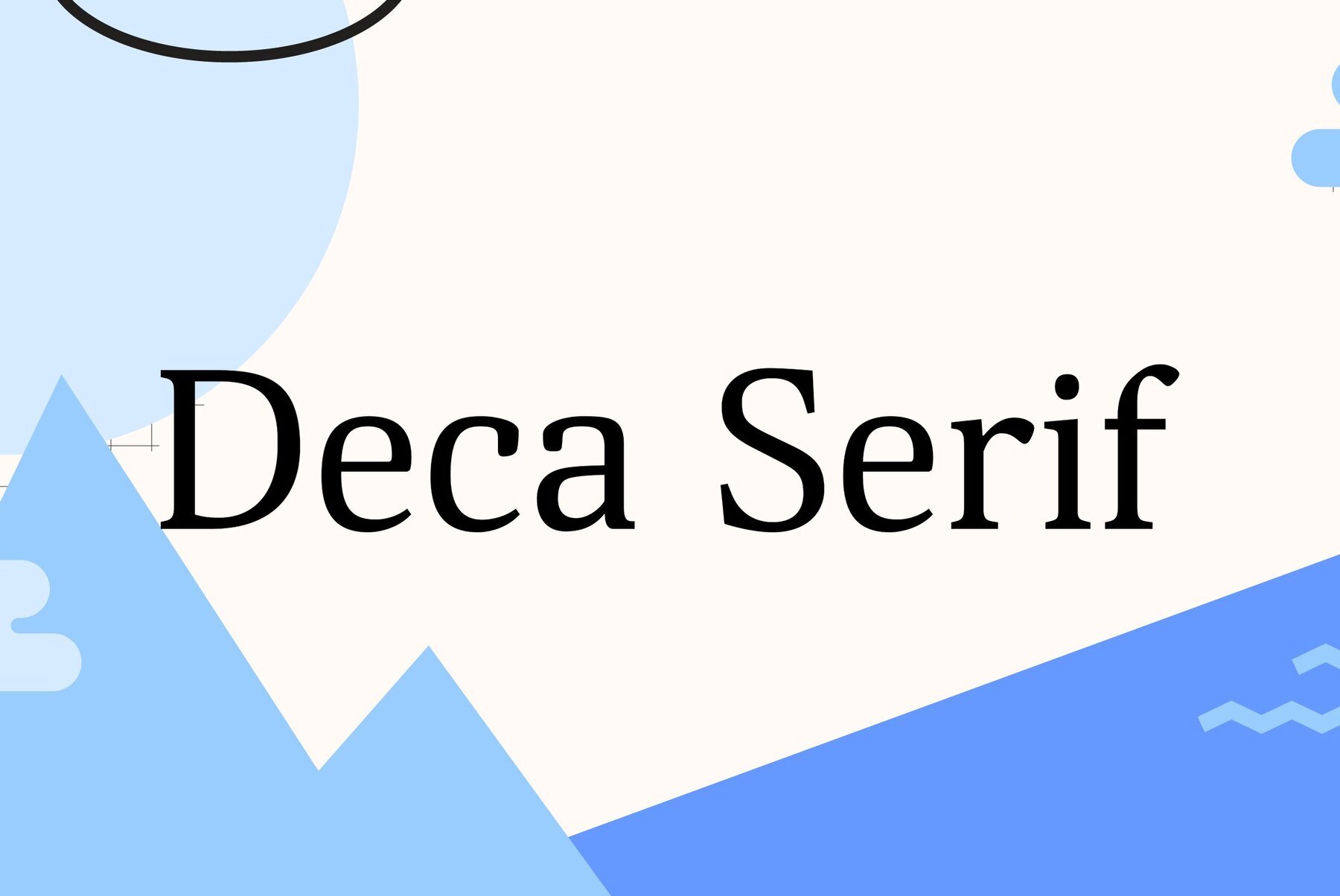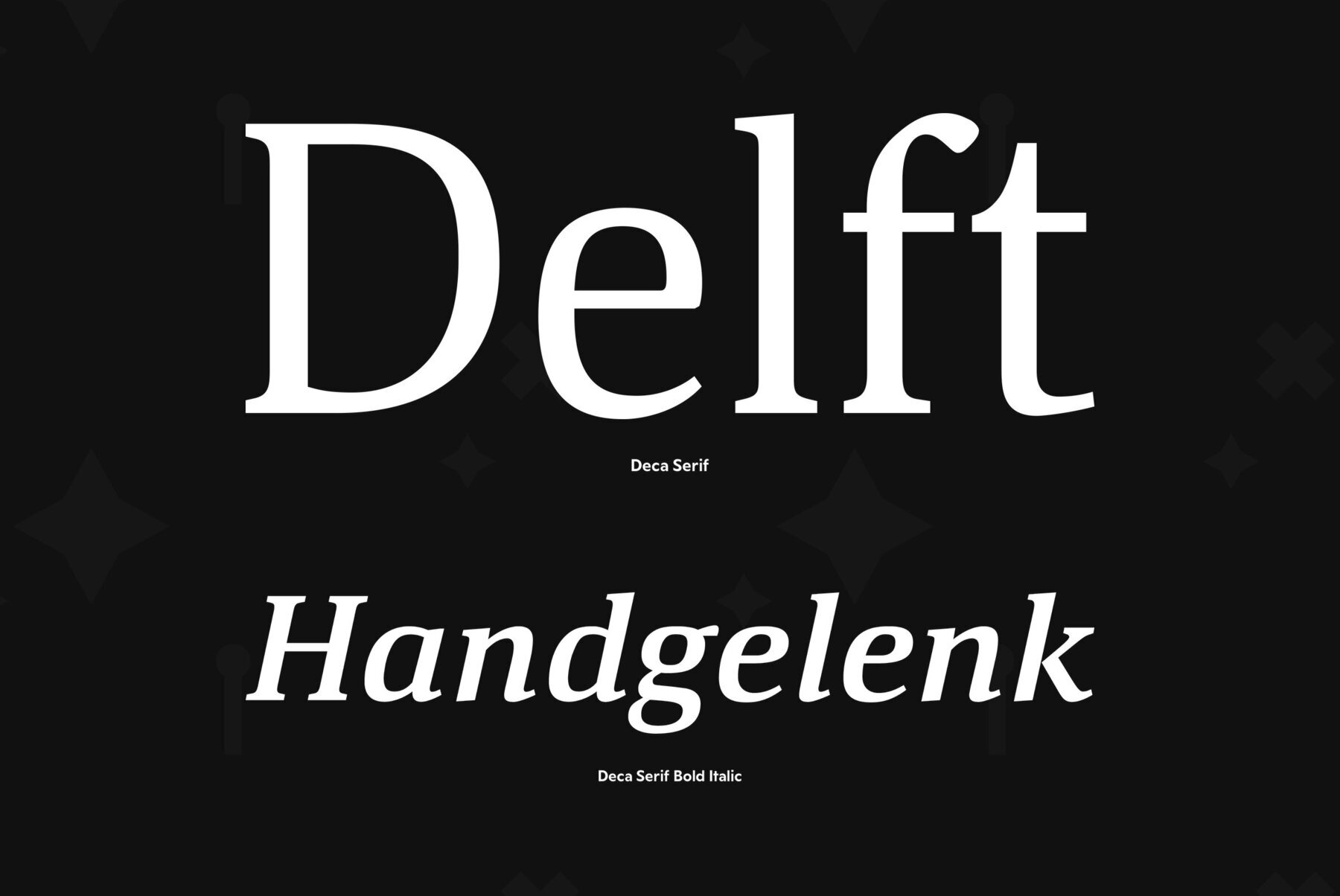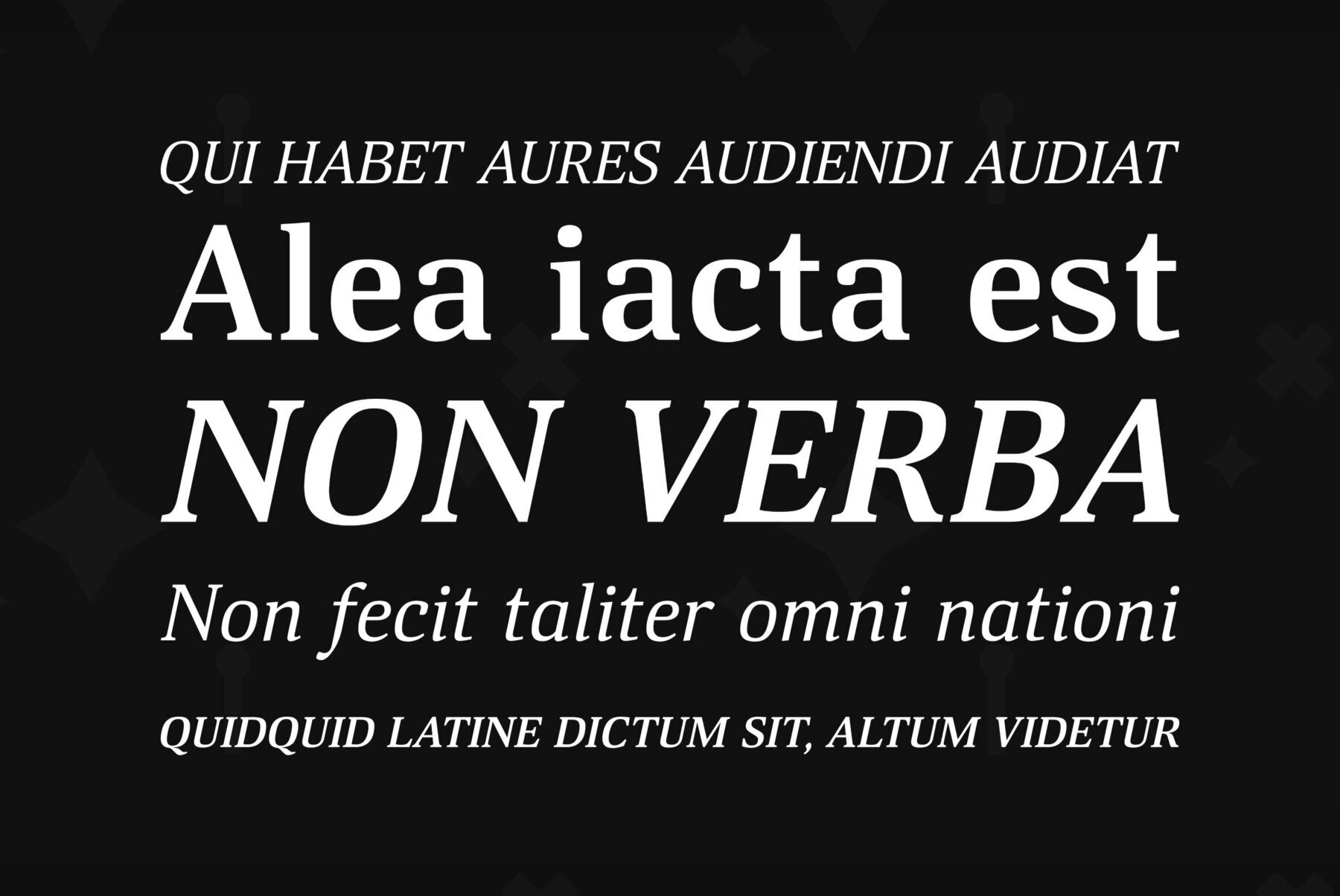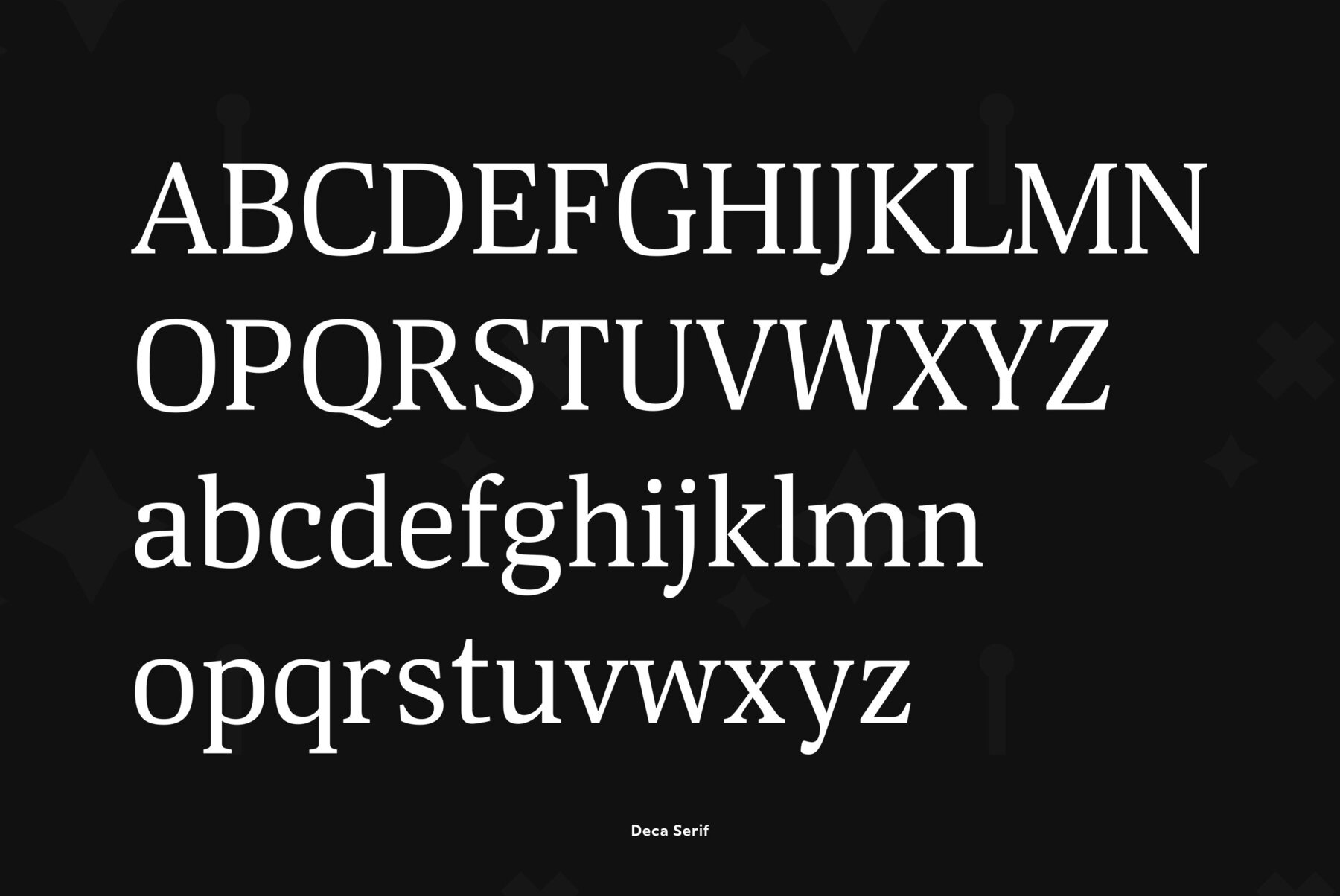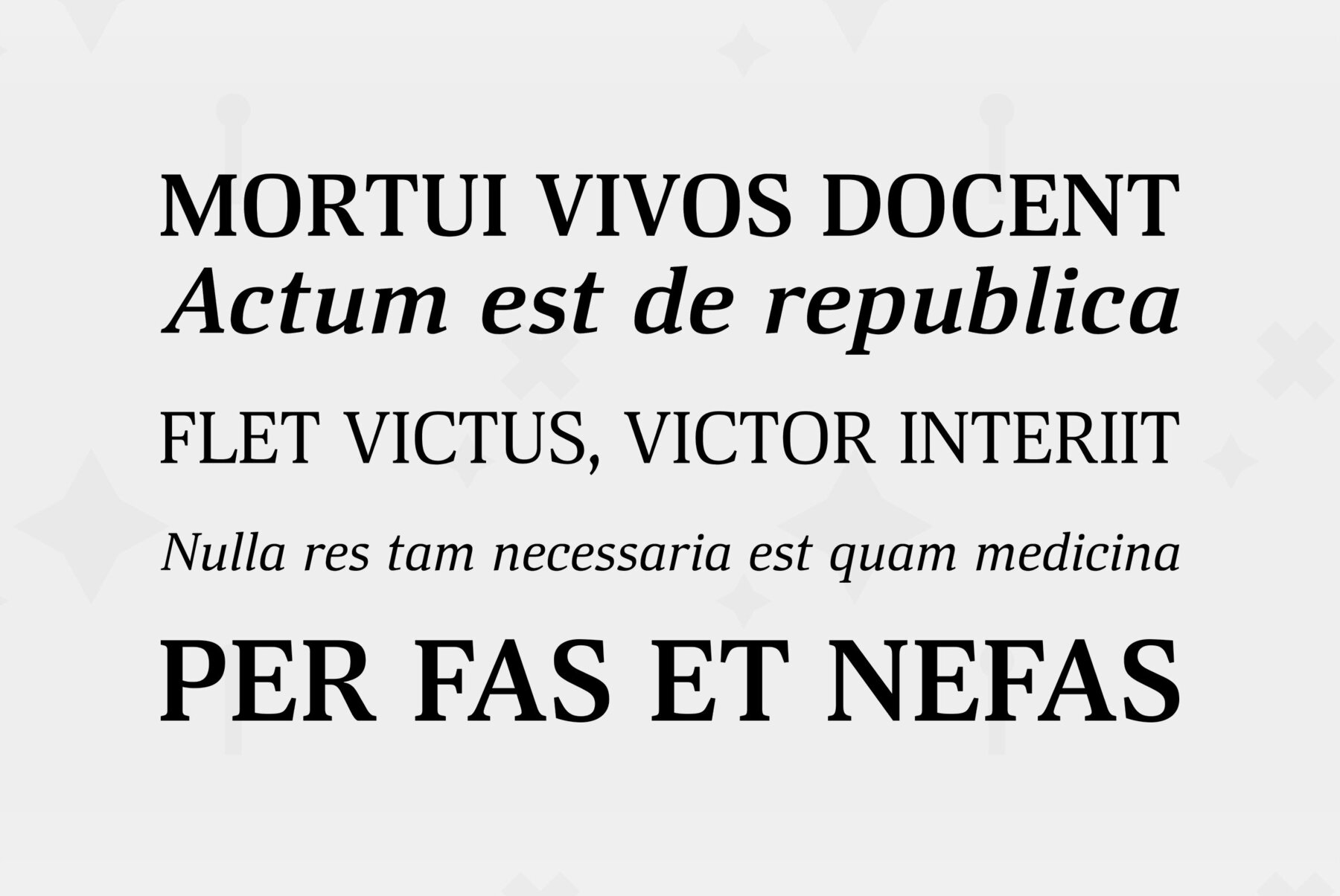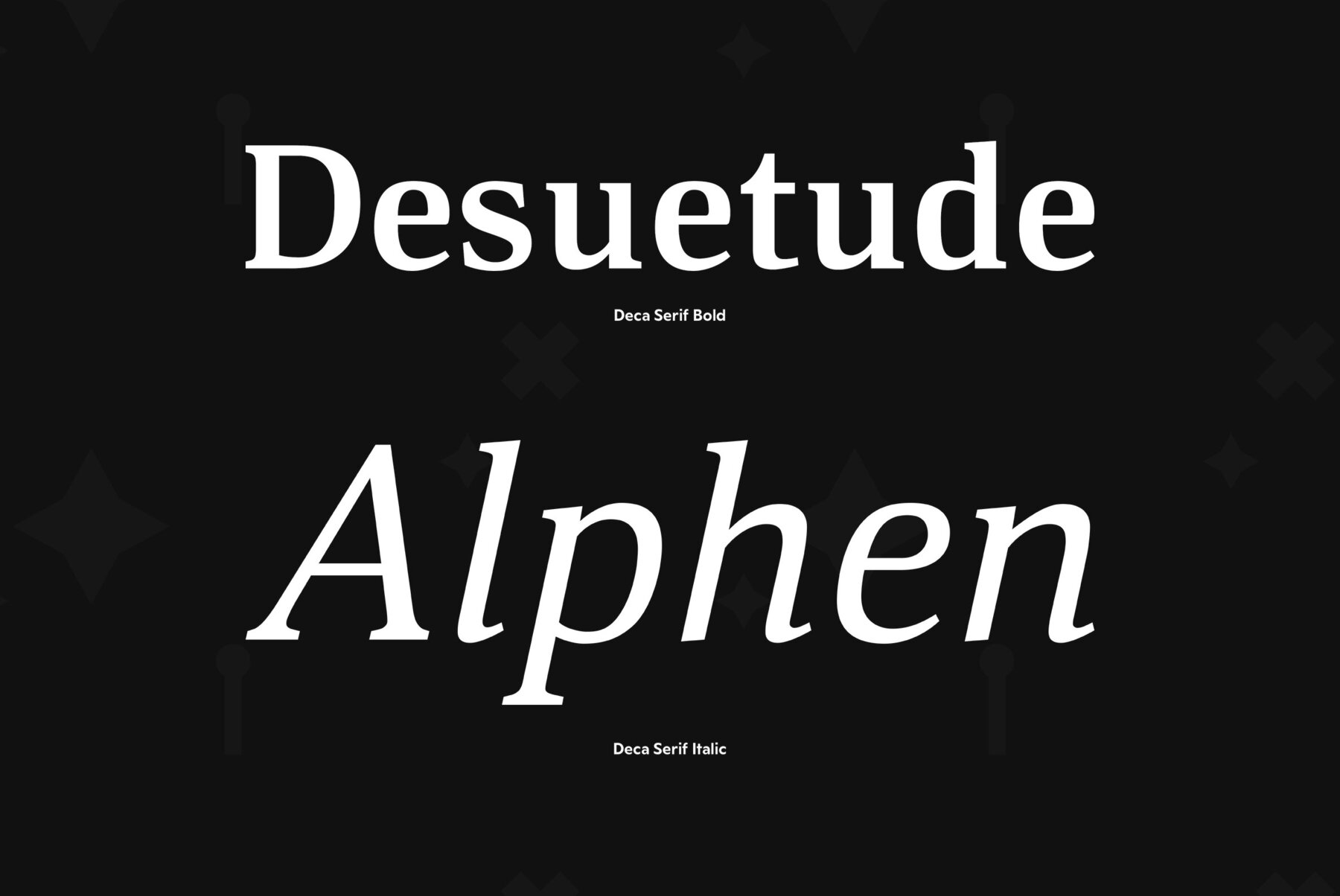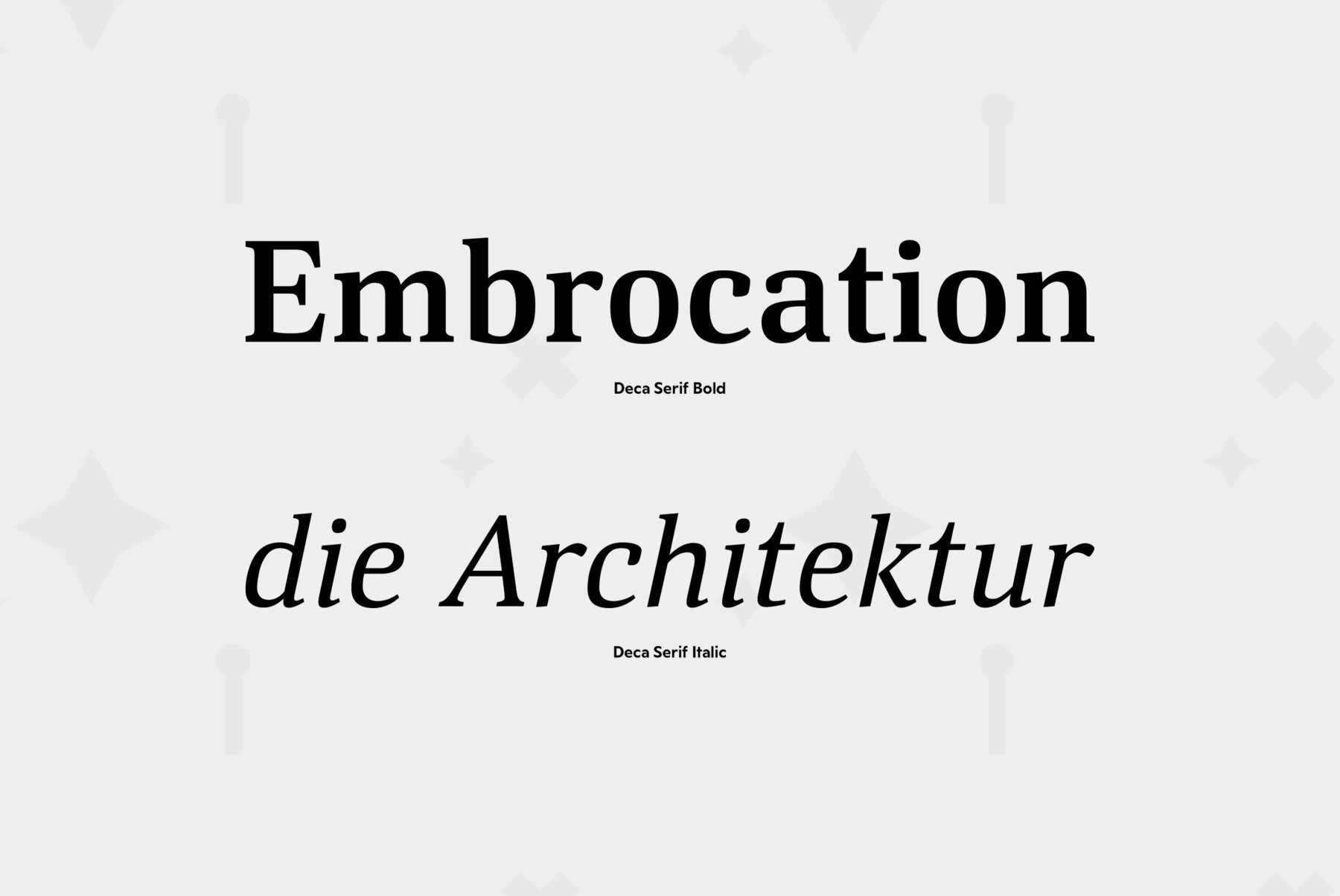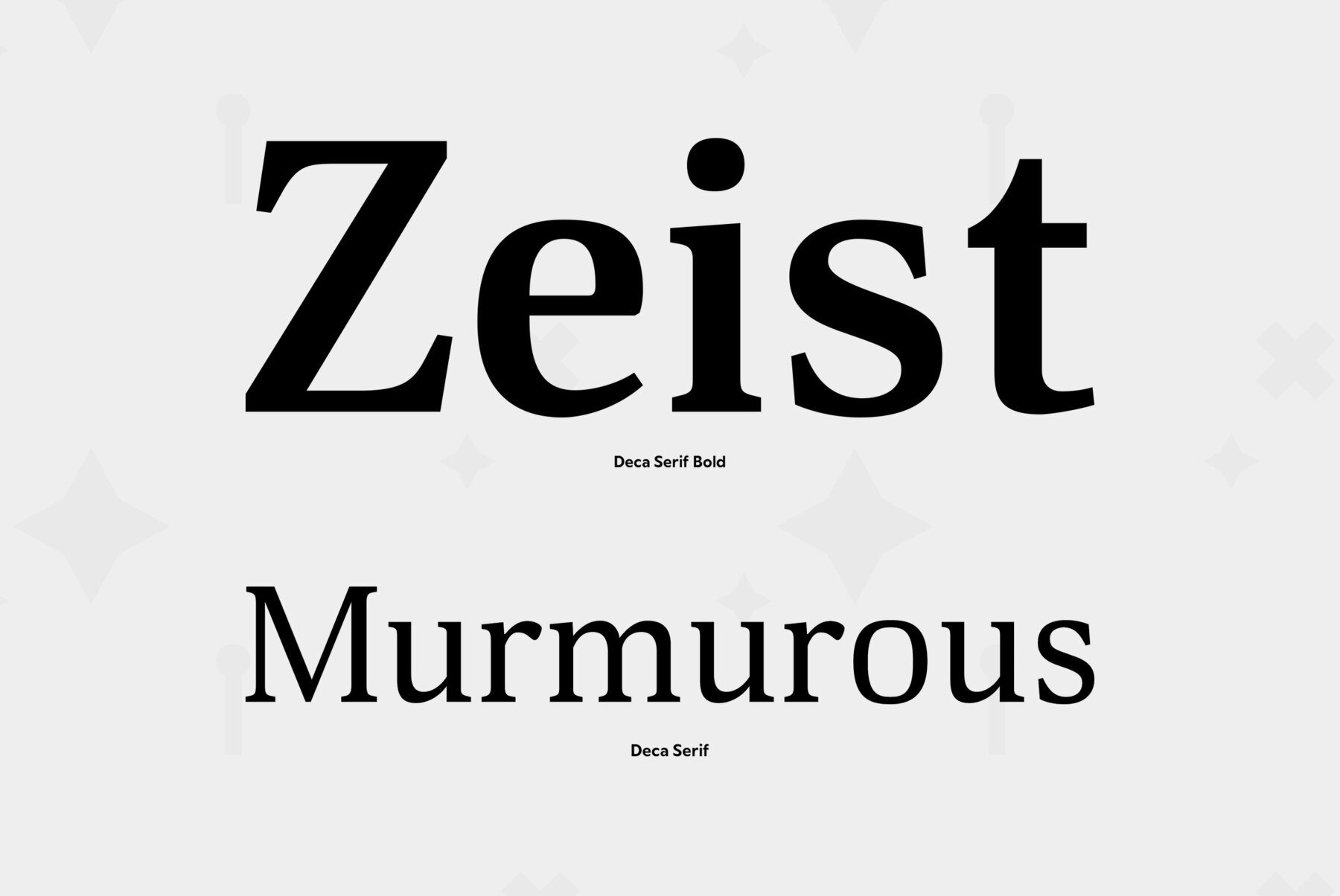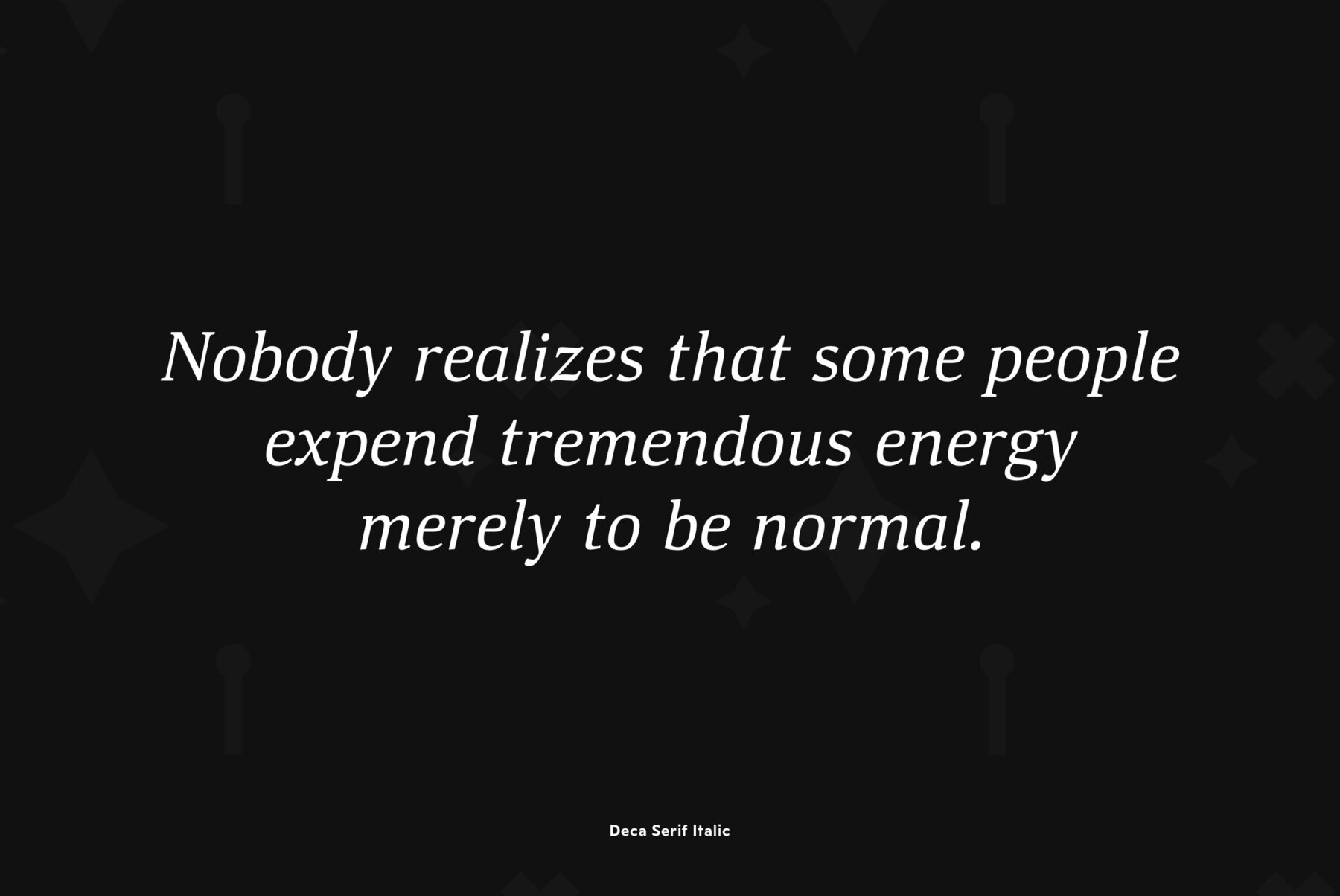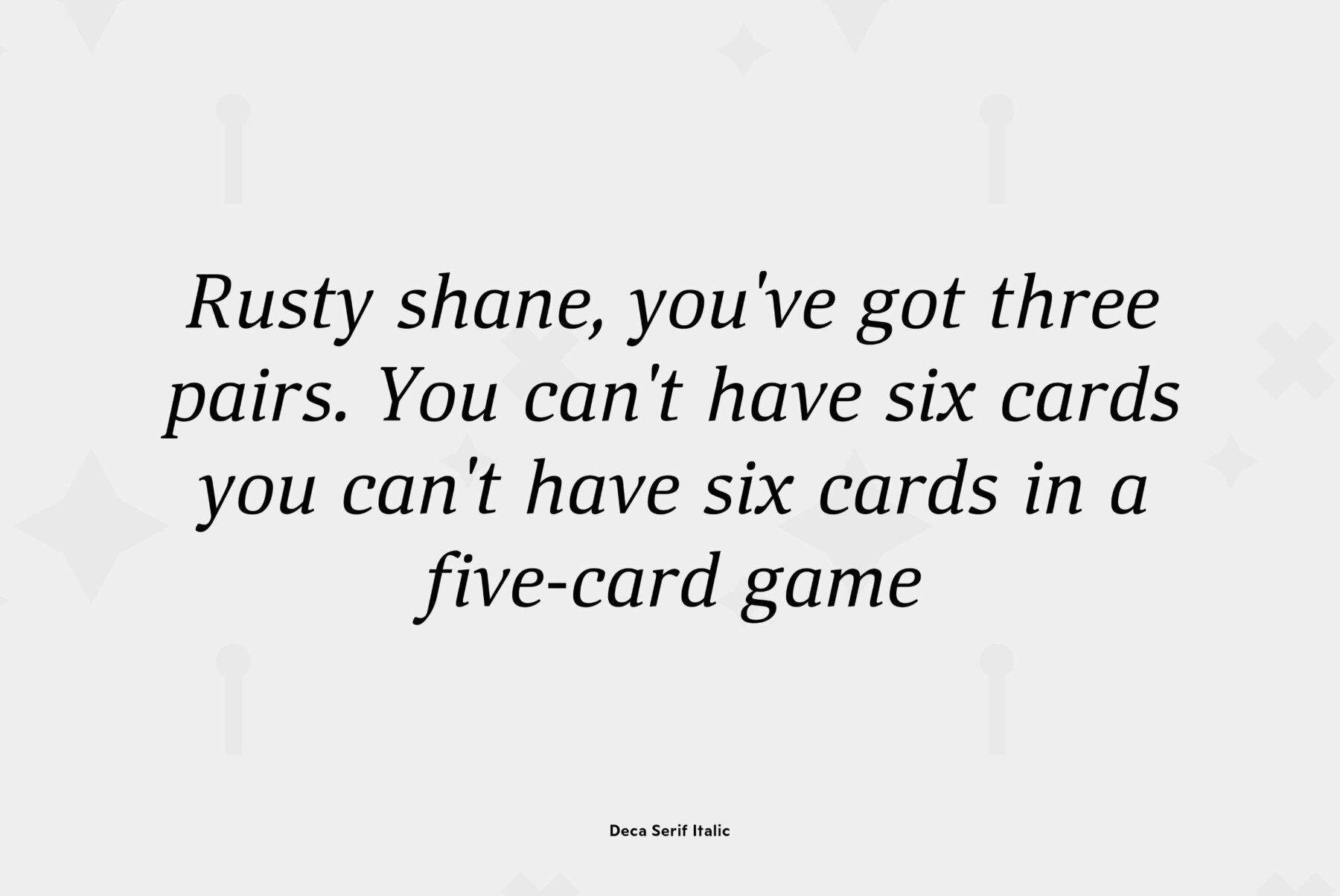
Deca Serif
Super family Deca consists of ten fonts — six sans serif styles form the Deca Sans family and four styles of serif family named Deca Serif. These are low contrast fonts of pure design with ovals bent to rectangular shapes. They are nicely readable in small sizes and can be recommended for scientific, legal, official and business documents. Serif and sans serif fonts were designed in comparable proportions, they are balanced by color and have similar details in basic shapes. These features provide high compatibility and assume collective usage of the fonts in documents. Designer Natalia Vasilyeva. Released by ParaType in 2010.